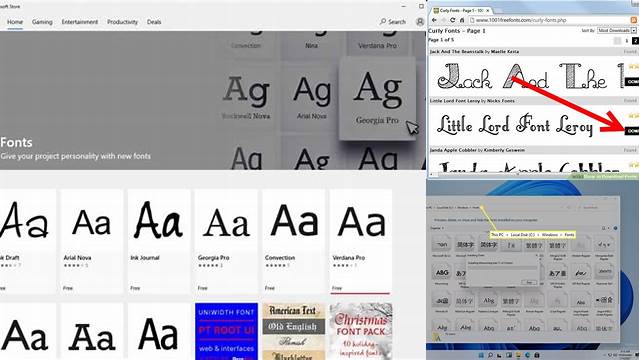
Download Windows Fonts: A Simple Guide For PC
Introduction: Diving into the World of Windows Fonts
Hey guys! Have you ever thought about the magic behind the text you see on your computer screen? It's all thanks to fonts! Fonts are the unsung heroes of visual communication, shaping how we perceive and interact with digital content. When it comes to Windows, the operating system comes packed with a decent collection of fonts, but sometimes you need that extra flair, that perfect typeface to make your project truly shine. This is where downloading fonts for your PC becomes essential. In this comprehensive guide, we'll explore everything you need to know about Windows fonts, from understanding what they are and why they matter to finding, downloading, installing, and managing them effectively. We'll also delve into the legal aspects and best practices, ensuring you can expand your font library safely and responsibly. So, whether you're a graphic designer, a content creator, or just someone who loves to customize their digital environment, this guide is for you. Let's dive in and unlock the potential of Windows fonts! We’ll start by understanding what exactly fonts are and why they are so crucial for visual communication. Then, we’ll explore the different types of fonts available and how they can impact your projects. Next, we’ll walk through the process of finding reliable sources for downloading fonts and the steps to install them on your Windows PC. We'll also cover font management techniques to keep your system organized and efficient. Finally, we’ll touch on the legal aspects of font usage and share some best practices to ensure you're using fonts correctly and ethically. This journey into the world of Windows fonts will equip you with the knowledge and skills to enhance your projects and express your creativity like never before. So, buckle up and let’s get started!
Understanding Fonts: What They Are and Why They Matter
So, what exactly are fonts, and why should you care about them? Think of fonts as the voice of your text. Just like a person's voice can convey different emotions and tones, fonts can communicate different moods, styles, and messages. A font is a specific typeface design, a set of characters (letters, numbers, symbols) that share a consistent visual appearance. They are the cornerstone of typography, which is the art and technique of arranging type to make written language legible, readable, and appealing. Choosing the right font can significantly impact how your message is received. A clean, modern font might be perfect for a business presentation, while a playful, handwritten font could be ideal for a birthday invitation. The font you select can influence the reader's perception of your content, making it crucial to choose wisely. Different fonts evoke different emotions and associations. For example, serif fonts (like Times New Roman) often convey a sense of tradition, authority, and formality, making them suitable for academic papers, legal documents, and formal publications. Sans-serif fonts (like Arial or Helvetica), on the other hand, tend to appear more modern, clean, and minimalist, making them popular for websites, user interfaces, and contemporary designs. Script fonts (which mimic handwriting) can add a touch of elegance, personality, or whimsy, making them great for invitations, greeting cards, and creative projects. Decorative fonts are more unique and artistic, often used for headlines, logos, and designs where visual impact is paramount. The importance of fonts extends beyond aesthetics. Legibility and readability are critical factors in user experience. A well-chosen font enhances readability, making it easier for the audience to engage with your content. Conversely, a poorly chosen font can strain the eyes, discourage reading, and even detract from the overall message. In digital design, fonts play a crucial role in branding. A consistent typeface across your website, marketing materials, and other platforms helps establish brand identity and reinforces recognition. A carefully selected font can convey your brand's personality and values, helping you connect with your target audience on an emotional level. Overall, understanding fonts and their impact is essential for effective communication. By mastering the art of typography, you can elevate your designs, enhance your message, and leave a lasting impression on your audience. So, let’s move on to exploring the different types of fonts available and how they can be used to create compelling visuals.
Exploring Different Types of Fonts: Serif, Sans-Serif, Script, and More
Now that we understand the importance of fonts, let's explore the different types you'll encounter. Fonts are broadly categorized into several styles, each with its own unique characteristics and applications. The most common categories are serif, sans-serif, script, and decorative fonts. Understanding these categories will help you choose the right font for any project. Serif fonts are characterized by small decorative strokes, or "serifs," at the ends of the main strokes of the letters. These fonts are often associated with tradition, authority, and formality. Think of fonts like Times New Roman, Garamond, and Georgia. Serif fonts are frequently used in books, newspapers, and formal documents because their serifs are said to help guide the reader's eye across the page, enhancing readability in long blocks of text. They convey a sense of elegance and history, making them suitable for projects that require a classic or sophisticated look. In contrast, sans-serif fonts lack these decorative strokes. They have a cleaner, more modern appearance, making them popular for contemporary designs. Arial, Helvetica, and Calibri are common examples of sans-serif fonts. These fonts are often used in websites, user interfaces, and other digital applications because they tend to be more legible on screens. Their minimalist design gives them a fresh and approachable feel, perfect for conveying clarity and simplicity. Script fonts mimic the flowing strokes of handwriting. They range from formal and elegant (like calligraphy) to casual and playful. Script fonts can add a personal touch to your designs, making them suitable for invitations, greeting cards, and creative projects. However, they should be used sparingly, as they can be difficult to read in large blocks of text. Examples include Brush Script, Lucida Handwriting, and Pacifico. Decorative fonts, also known as display fonts, are the most diverse category. They encompass a wide range of styles, from bold and impactful to whimsical and quirky. Decorative fonts are designed to grab attention and create a visual statement. They are often used for headlines, logos, and other design elements where visual impact is paramount. Examples include Comic Sans MS, Impact, and various novelty fonts. While they can add personality to your designs, they should be used judiciously to avoid overwhelming the reader. Beyond these main categories, there are also variations and subcategories, such as monospaced fonts (where each character occupies the same horizontal space, like Courier New), which are often used in coding and technical documentation, and slab-serif fonts (which have thick, block-like serifs), which can convey a sense of strength and stability. Choosing the right font type depends on the project's purpose, the message you want to convey, and the overall aesthetic you're aiming for. Experimenting with different fonts and understanding their characteristics is key to effective typography. Now that we know the different types of fonts, let's explore how to find and download them for your Windows PC.
Okay, let's talk about the not-so-glamorous but super important part of font usage: the legal stuff. Understanding font licensing is crucial to ensure you're using fonts legally and ethically. Fonts, like software and other creative works, are protected by copyright law. This means that the designer or foundry that created the font owns the copyright and has the right to control how the font is used. When you purchase or download a font, you're not actually buying the font itself; you're buying a license to use the font under specific terms and conditions. These terms and conditions are outlined in the font license, which is a legal agreement between you and the font's copyright holder. Font licenses can vary widely, depending on the font, the foundry, and the intended use. Some fonts are free to use for both personal and commercial projects, while others require a license fee for commercial use. Some licenses restrict how you can use the font, such as limiting the number of users or devices on which the font can be installed, or prohibiting the embedding of the font in certain types of documents or websites. It's essential to carefully read the font license before using a font, especially for commercial projects. If you're unsure about the terms of a license, it's always best to contact the font foundry or designer for clarification. There are two main types of font licenses: personal use licenses and commercial use licenses. Personal use licenses typically allow you to use the font for non-commercial projects, such as creating invitations, greeting cards, or personal documents. Commercial use licenses, on the other hand, allow you to use the font in projects that generate revenue, such as logos, websites, marketing materials, and products for sale. Commercial licenses often come with restrictions, such as the number of users or devices allowed, the number of impressions or views permitted, and the types of projects in which the font can be used. Some licenses may also prohibit the modification or redistribution of the font. When downloading free fonts, it's important to check the license to ensure that the font is truly free for your intended use. Some fonts may be free for personal use but require a commercial license for business projects. Others may be licensed under open-source licenses, which allow for free use, modification, and redistribution, but may require attribution to the original designer. Font embedding is another area where licensing can be complex. Font embedding is the process of including the font file within a document or application, such as a PDF or a website. Some font licenses allow embedding, while others restrict it or require a separate license fee. If you're creating a PDF or a website that uses a font, be sure to check the license to ensure that you have the right to embed the font. Font licensing can seem daunting, but it's crucial to respect the rights of font designers and foundries. By understanding font licenses and adhering to the terms and conditions, you can use fonts legally and ethically and support the creative community. Now that we've covered the legal aspects, let's wrap up with some final best practices for working with Windows fonts.
Best Practices for Working with Windows Fonts: A Final Checklist
Alright, guys, we've covered a lot about Windows fonts, from understanding what they are to downloading, installing, managing, and using them legally. To wrap things up, let's go through a final checklist of best practices for working with Windows fonts to ensure you're getting the most out of your font library and creating beautiful, effective designs. First and foremost, always download fonts from reputable sources. As we discussed earlier, this is crucial for avoiding malware and ensuring you're getting high-quality fonts with proper licenses. Stick to trusted websites like Google Fonts, Adobe Fonts, DaFont (with caution), Creative Market, and MyFonts. Secondly, read the font license before using a font, especially for commercial projects. Understand the terms and conditions of the license, including whether the font is free for commercial use, how many users or devices are allowed, and any restrictions on embedding or modification. Thirdly, organize your fonts effectively. Create a separate font library outside of the Windows Fonts folder, and use folders to categorize your fonts by type, project, or other criteria. This will make it easier to find the fonts you need and keep your system organized. Fourthly, avoid installing too many fonts. Only install the fonts you regularly use, and consider temporarily installing fonts for specific projects and uninstalling them afterward. This will help keep your system running smoothly and efficiently. Fifthly, use font management software if you have a large font collection. These tools can help you preview fonts, organize them into sets, activate and deactivate fonts, and resolve font conflicts. Sixthly, regularly review your font library and remove any fonts you no longer need or use. This will help keep your library clean and manageable. Seventhly, be mindful of font pairing. Choosing the right font combinations can significantly enhance the visual appeal and readability of your designs. Experiment with different font pairings to find the best combinations for your projects. Eighthly, use fonts consistently across your branding and marketing materials. Consistent font usage helps establish brand identity and reinforces recognition. Ninth, back up your font library regularly. Your fonts are valuable assets, and you don't want to lose them if your computer crashes or you accidentally delete them. Create a backup on an external hard drive or in the cloud. Finally, respect font designers and foundries. They put a lot of effort into creating beautiful and useful fonts, so be sure to use them legally and ethically. By following these best practices, you can make the most of your Windows font library, create stunning designs, and ensure you're using fonts responsibly. So go ahead, guys, explore the world of typography and let your creativity shine! Happy font-ing!